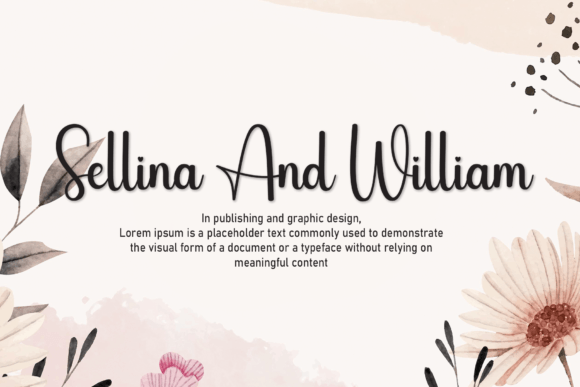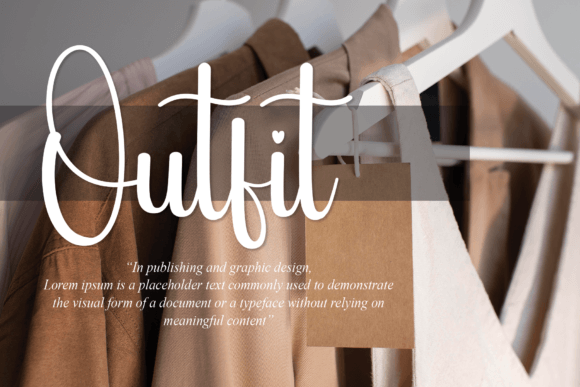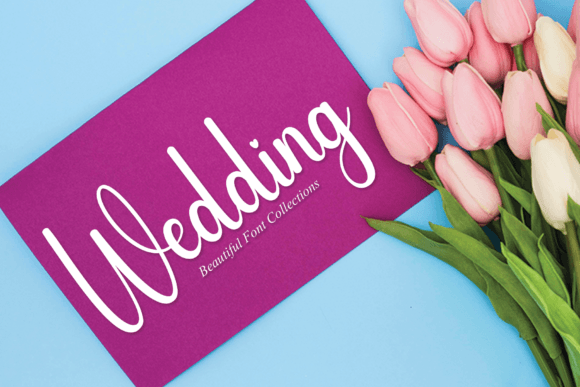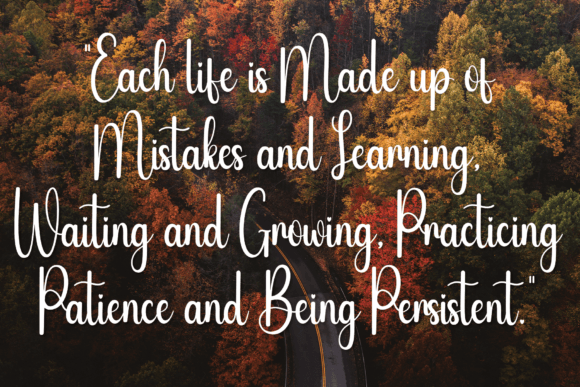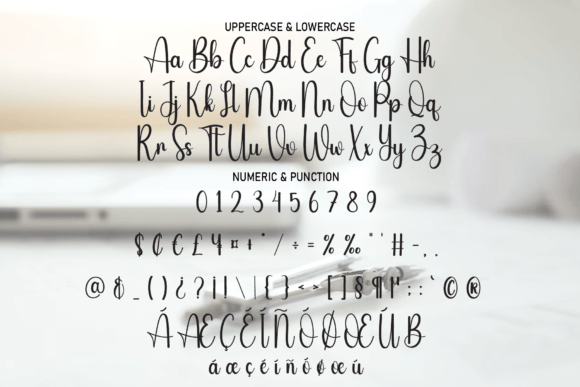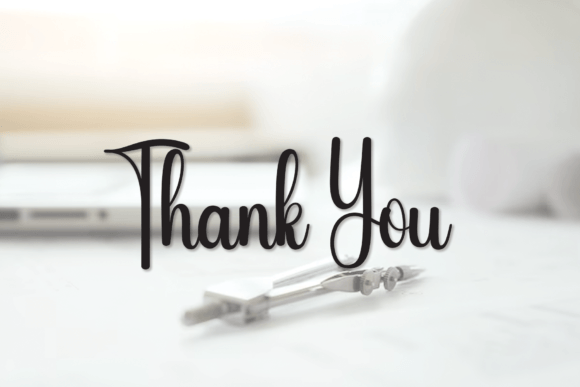
Introducing Autography Font: Elevate Your Designs with a Neat and Casual Handwritten Style
Are you tired of using the same old fonts in your designs? Look no further than Autography, a beautiful and versatile handwritten font that’s perfect for adding a personal touch to your creative projects. In this article, we’ll dive into the world of Autography, exploring its features, benefits, and uses, and show you how this incredible font can take your designs to the next level.
What is Autography Font?
Autography is a neat and casual handwritten font that’s designed to make your designs stand out. With its unique and elegant style, this font is incredibly versatile and can be used for a wide range of applications, from branding and advertising to packaging and digital media. Whether you’re a designer, crafty DIY enthusiast, or simply someone who loves to create, Autography is the perfect addition to your font collection.
Key Features of Autography Font
- Handwritten style: Autography boasts a beautiful, handwritten style that’s perfect for adding a personal touch to your designs.
- Neat and casual: This font strikes the perfect balance between neat and casual, making it suitable for a wide range of applications.
- Versatile: Autography can be used for everything from headings and titles to body text and captions.
- Elegant and sophisticated: Despite its casual nature, Autography has an undeniable elegance that will elevate your designs and make them stand out.
Benefits of Using Autography Font
So why should you choose Autography for your designs? Here are just a few benefits of using this amazing font:
- Adds a personal touch: Autography’s handwritten style adds a personal touch to your designs, making them more relatable and engaging.
- Versatile: This font can be used for a wide range of applications, from digital media to print materials.
- Easy to read: Despite its elegant style, Autography is incredibly easy to read, making it perfect for body text and captions.
- Unique: With Autography, you can create designs that stand out from the crowd and grab attention.
Using Autography Font in Your Designs
So how can you use Autography in your designs? Here are a few ideas to get you started:
- Branding and advertising: Use Autography to create eye-catching logos, taglines, and ad copy that will make your brand stand out.
- Digital media: Add Autography to your website, social media graphics, or email newsletters to add a personal touch and make your content more engaging.
- Packaging: Use Autography on product labels, packaging, or inserts to create a unique and memorable brand experience.
- Crafting and DIY projects: Add a personal touch to your crafting and DIY projects, such as handmade cards, gift tags, or scrapbooking pages.
Tips and Tricks for Getting the Most Out of Autography Font
Here are a few tips and tricks for getting the most out of Autography:
- Experiment with different sizes and colors: Autography looks great in a variety of sizes and colors, so don’t be afraid to experiment and find the perfect combination for your design.
- Pair with other fonts: Autography pairs well with a range of other fonts, so try combining it with bold sans-serifs or elegant scripts to create a unique look.
- Use it consistently: To create a cohesive brand identity, use Autography consistently across all your designs and marketing materials.